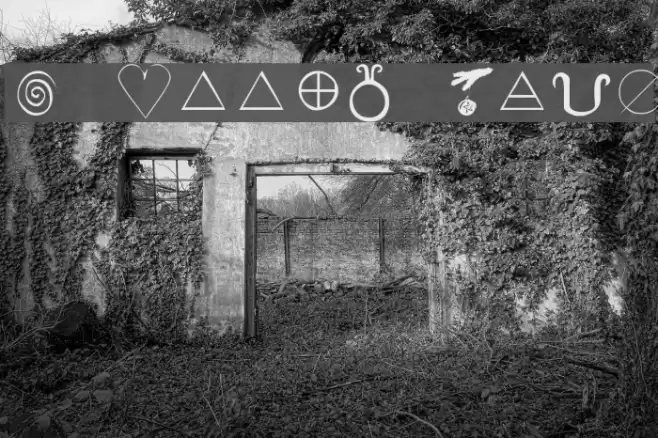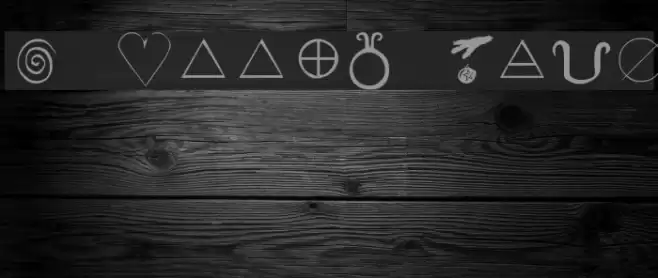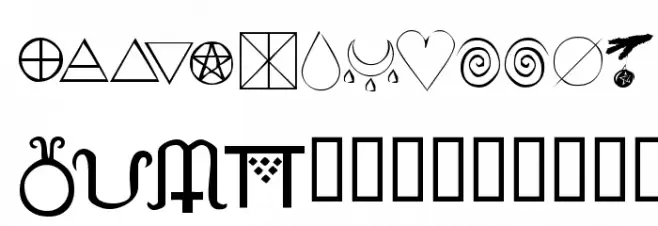
KR Wiccan Symbols Font
KR Wiccan Symbols Description
This is a decorative font featuring a collection of mystical and esoteric symbols. The characters are designed with a unique blend of geometric shapes and intricate details, evoking a sense of mystery and ancient wisdom. The symbols include various elemental and spiritual motifs, such as triangles, circles, and pentagrams, each crafted with precision and artistic flair. The bold lines and distinct shapes make it suitable for projects that require a touch of the mystical or the arcane. The font's style is both modern and timeless, capturing the essence of ancient symbols while presenting them in a contemporary format.
A decorative font with mystical and esoteric symbols, featuring bold lines and geometric shapes from Uncategorized fonts.
- Proposed Projects: Ideal for use in fantasy-themed designs, tarot card illustrations, mystical book covers, and spiritual event posters.
- Use Case: Logos, Posters, Illustrations